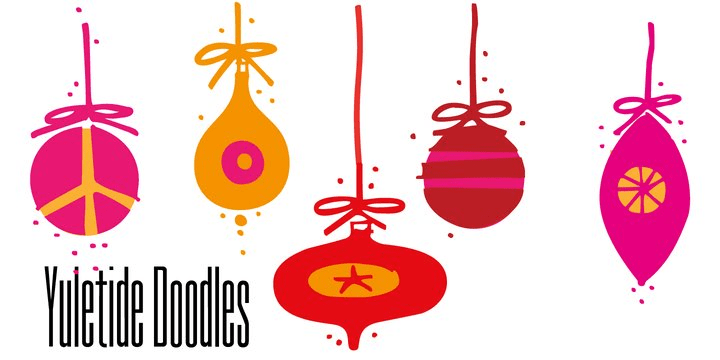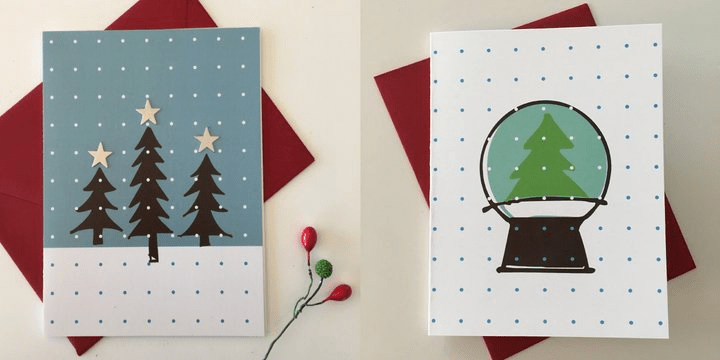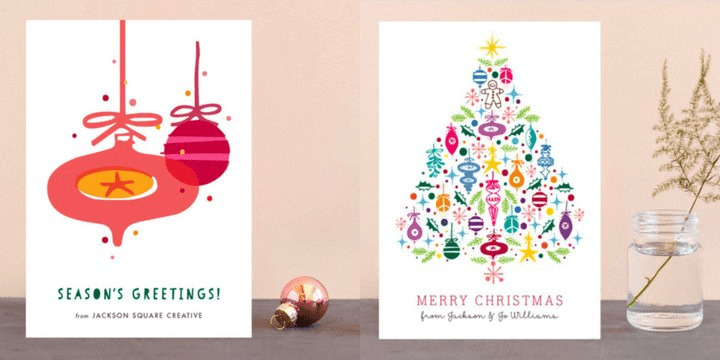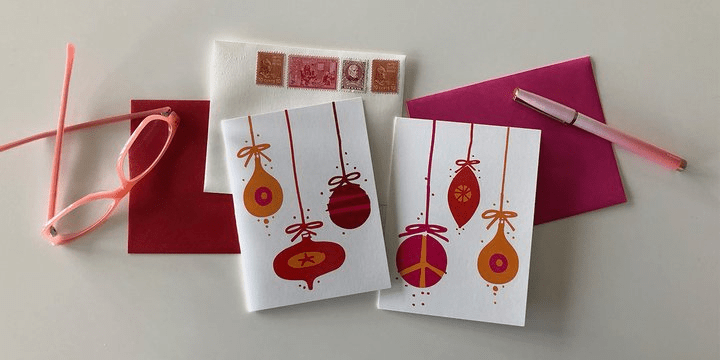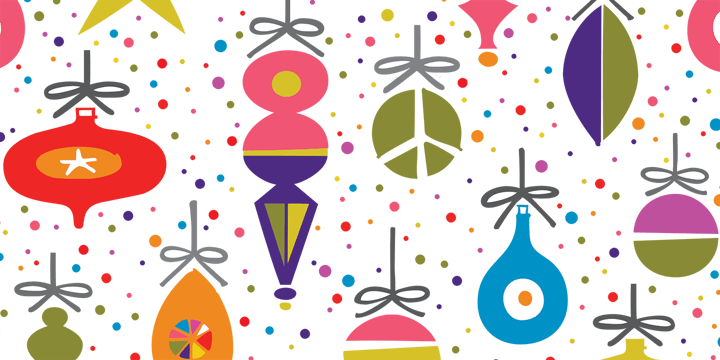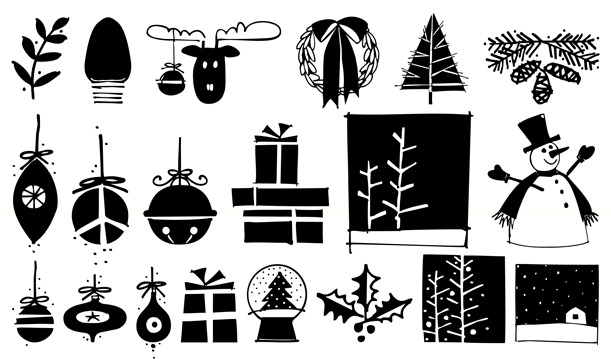
Yuletide Doodles
Font Family by Outside-the-Line
Yuletide Doodles is the perfect font for that quickie Christmas party flyer, menu, or invitation. Or make your own gift tags. The uses are endless. This font includes gifts, ornaments, snow globe, snow man, holly, olive branch, lots of trees and stars, a light bulb, deer, moose, wreaths, pine boughs, skate, stocking and crown. This font works well with Christmas Doodles and Christmas Doodles Too. Mix and match to your heart's desire.